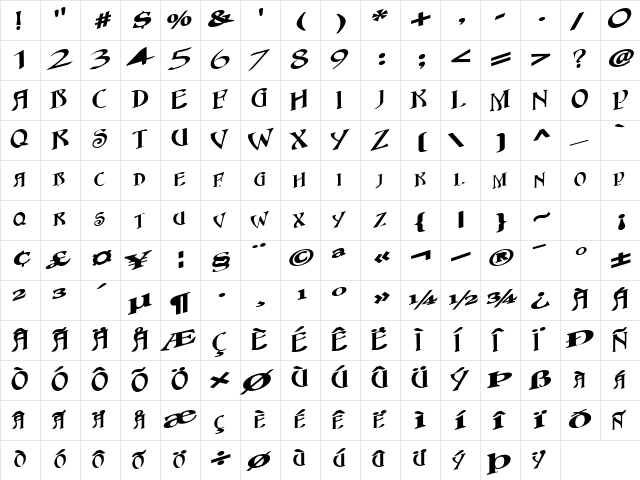
GoalSetterPlus67 Bold
Design Context for GoalSetterPlus67 Typeface
GoalSetterPlus67 is a composed and adaptable typeface that performs quietly and consistently across a wide range of design contexts. The heavy weight commands attention and anchors typographic hierarchies.